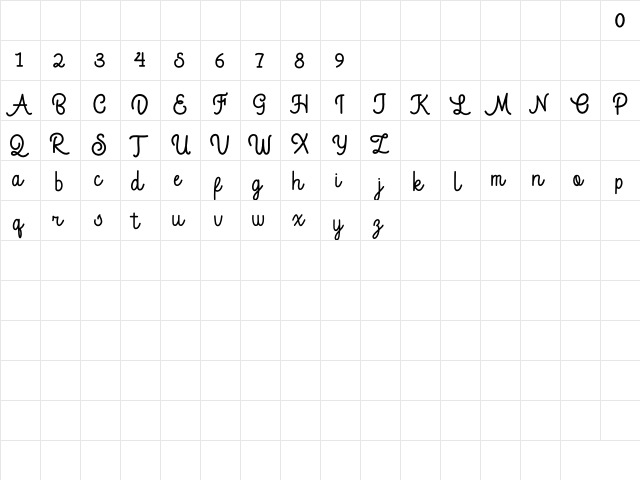
Rangelatte Regular
| Designer | Ramli setiadi |
Design Context for Rangelatte Typeface
Rangelatte is a composed and adaptable typeface that performs quietly and consistently across a wide range of design contexts.